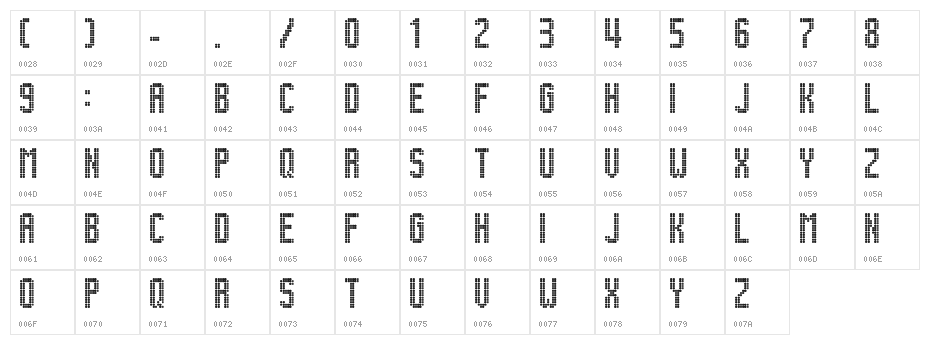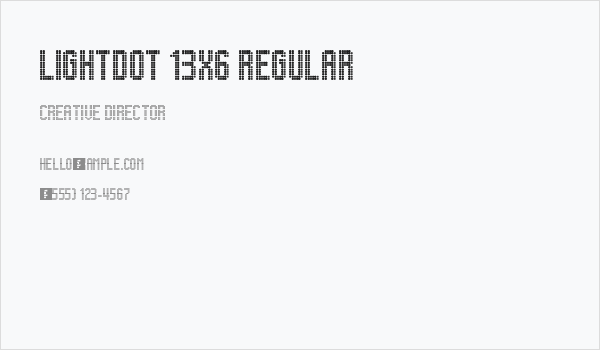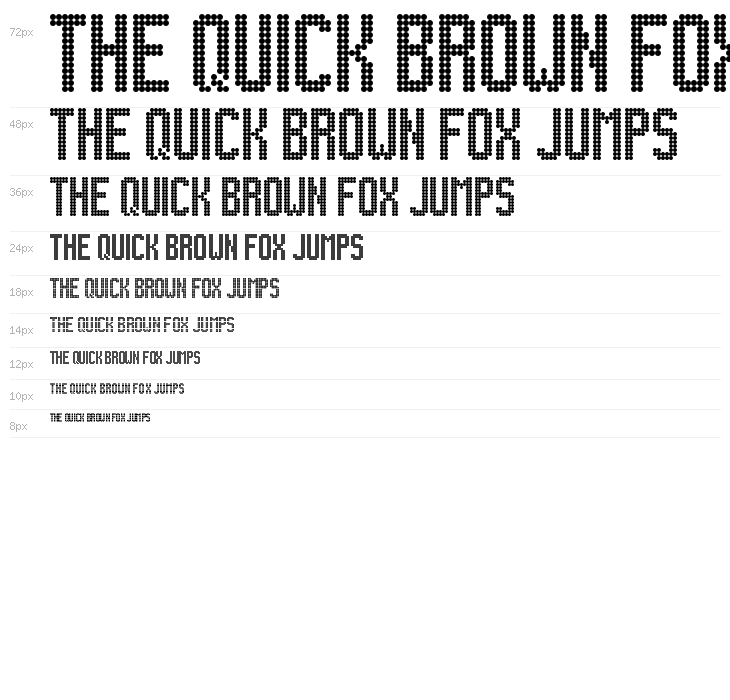
Lightdot 13x6 Regular Font
Lightdot 13x6 Regular Description
This font features a unique dot matrix design, where each character is composed of a grid of small, evenly spaced dots. The style is reminiscent of digital displays or LED screens, giving it a modern and technological feel. The characters are uniformly constructed, maintaining a consistent height and width across both uppercase and lowercase letters. Numbers and special characters follow the same dot pattern, ensuring a cohesive look. The font's geometric nature makes it highly legible, even at smaller sizes, while its distinctive appearance adds a decorative element to any text.
| Proposed Projects | Ideal for digital-themed projects, tech branding, electronic displays, and modern poster designs. |